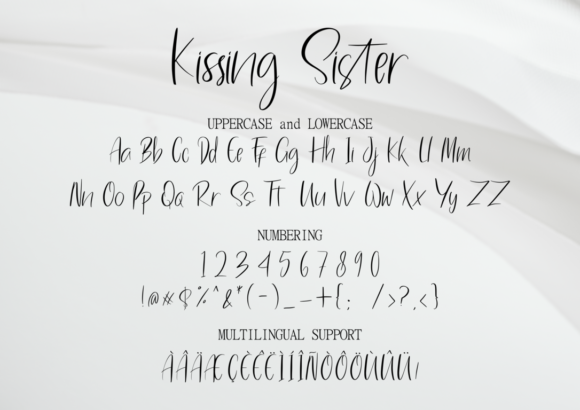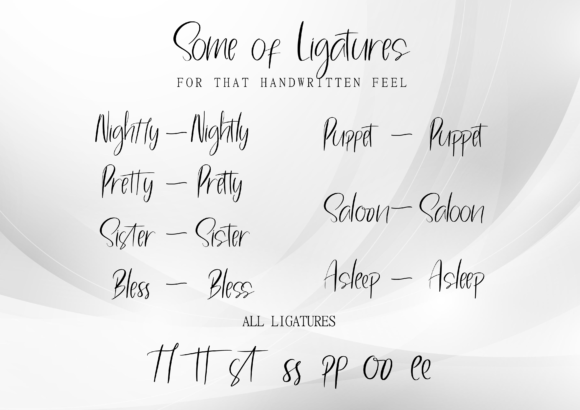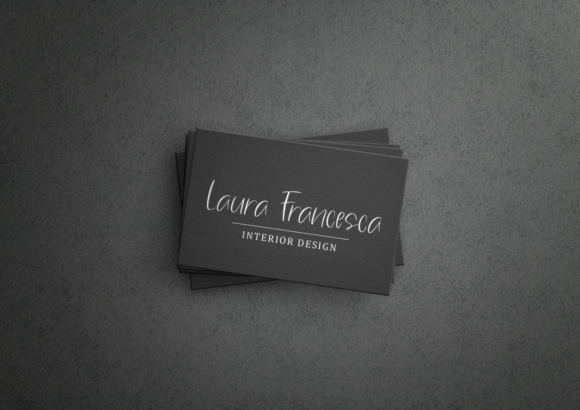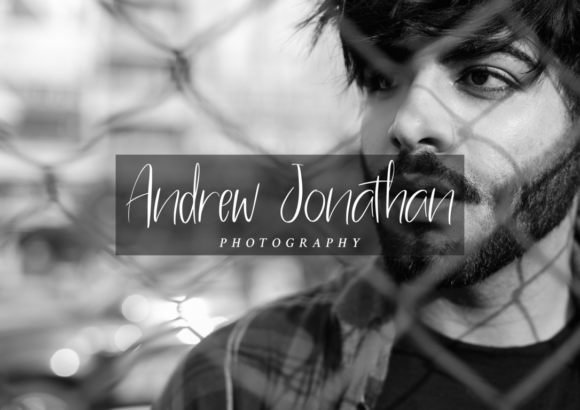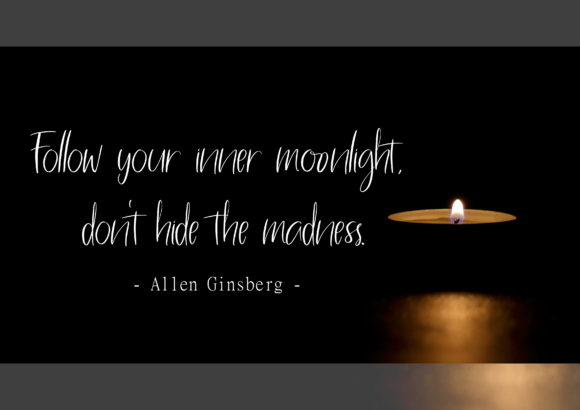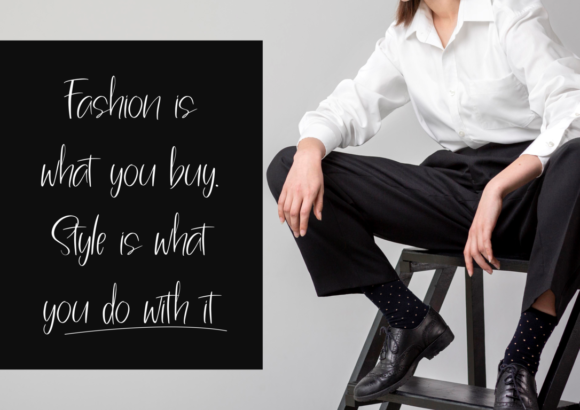
Introduction to Kissing Sister Font
Kissing Sister is a chic, refined script font that emanates sophistication and elegance.
Its stylish alternates and ligatures make this font the perfect match for any project .
Key Features of Kissing Sister Font
Why Choose Kissing Sister Font?